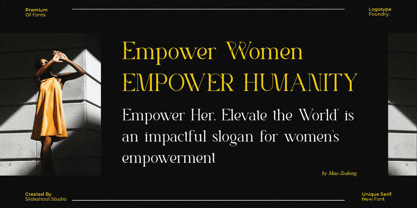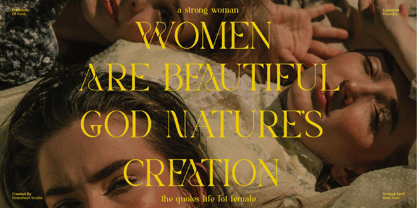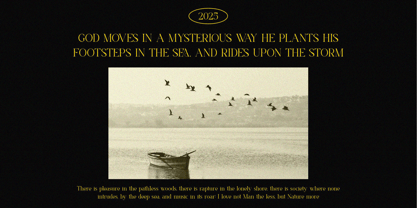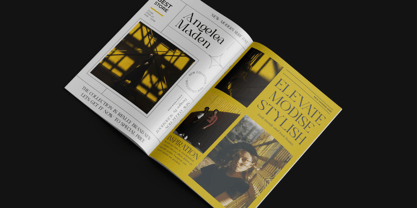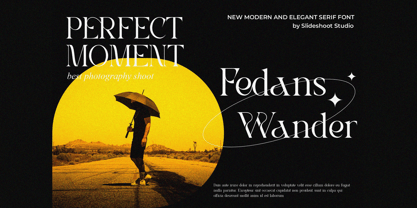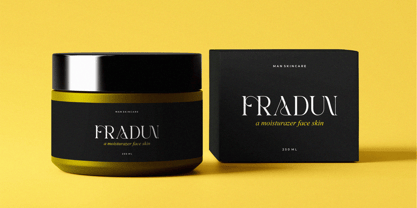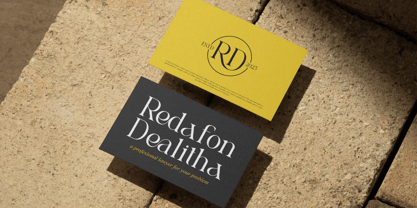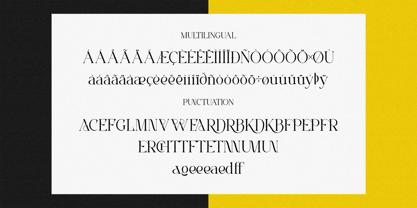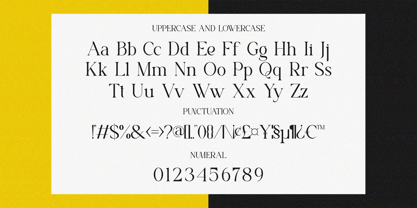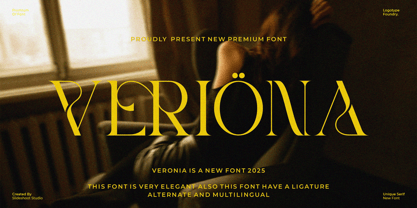
Veriona
von Slide Shoot
Die Schriftfamilie Veriona wurde von Ahmad Riqi entworfen und von Slide Shoot veröffentlicht. Veriona enthält 1 Stile.
Veriona Serif is a modern and classy font type for all branding and logo designs. This modern and classy Serif font has a beautiful character. This font is suitable for invitation card designs, cool logos, movie titles, movie names, business cards, book titles, brand names, and various other designs. Veriona Serif is a smooth serif font that exudes sophistication and the moment. Its stylish alterations and ligatures make this font a perfect partner for any project.